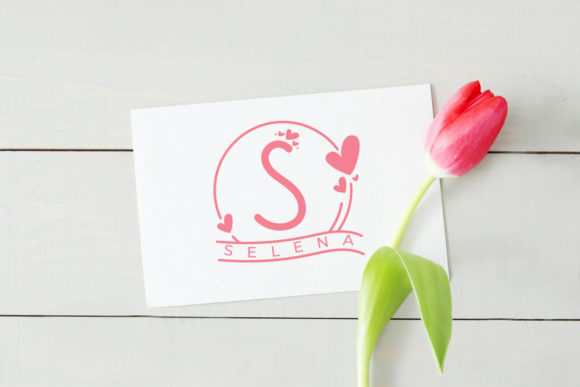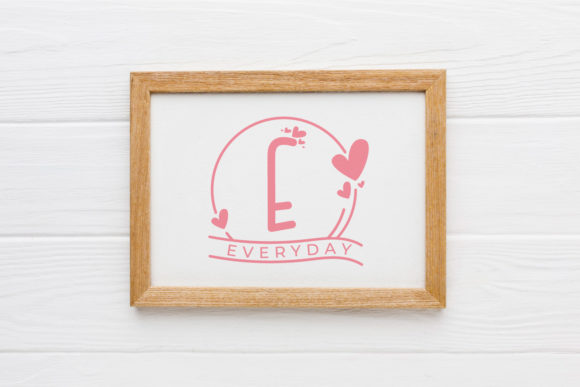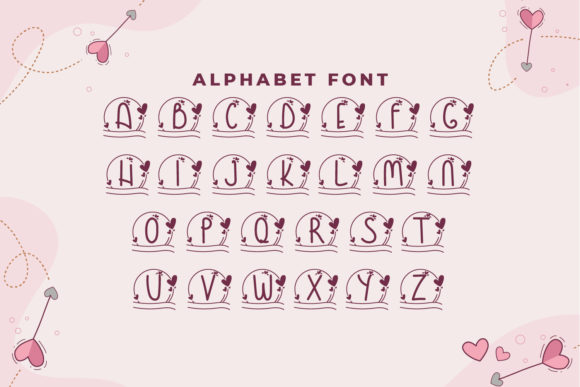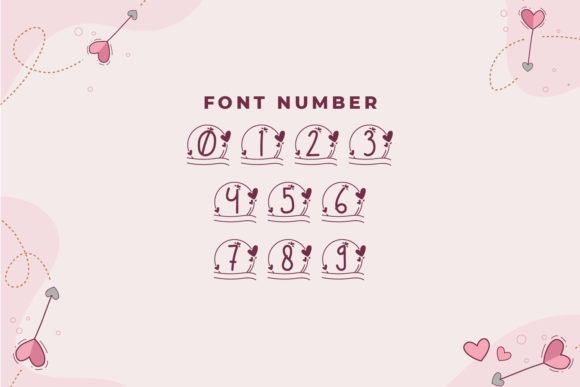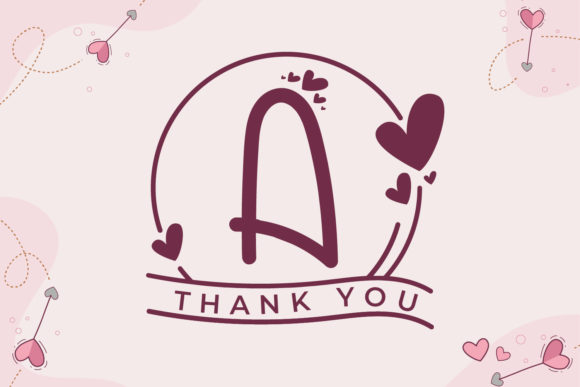
Monogram Handrawn Love Font – Free Download
Introduction to Monogram Handrawn Love Font
Monogram Handrawn Love is a graceful decorative font.
Add this romantic and lovely looking font to each of your love letters, wedding invitations or favorite design ideas, and you will be astounded by the outcome .
Key Features of Monogram Handrawn Love Font